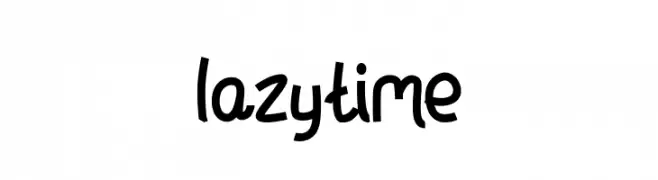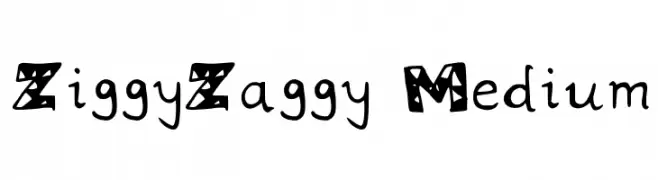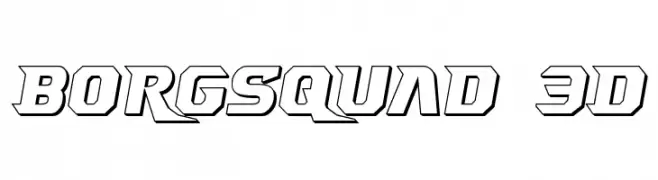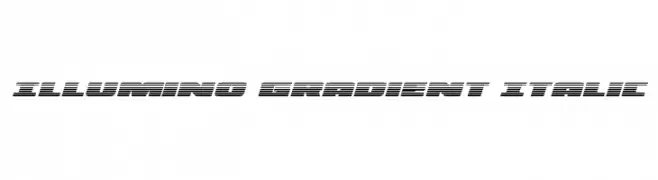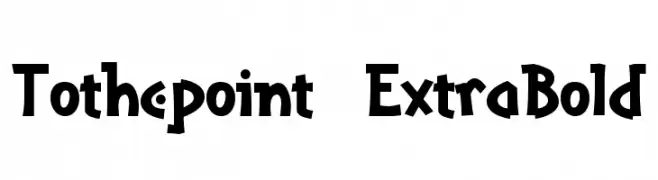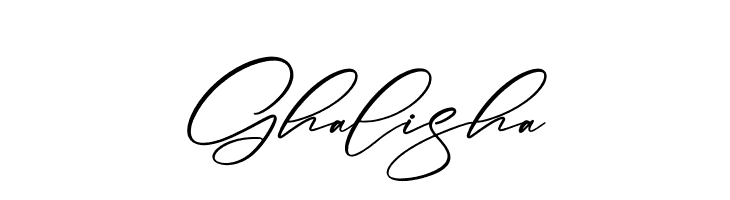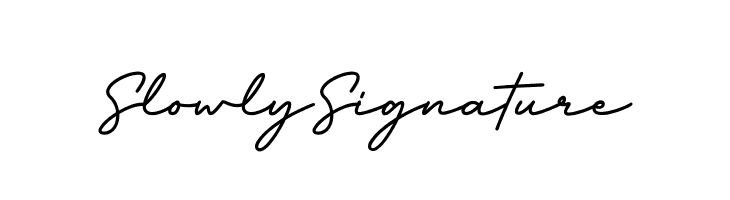
A bold, 3D font with a futuristic and dynamic style.
A bold, angular, geometric font with a modern edge.
A bold, brushstroke font with dynamic and textured characters.
A bold, italic font with a futuristic gradient line design.
A modern, outline-style font with rounded edges and geometric shapes.
A bold, flowing script font with a dynamic and elegant style.
A bold, playful font with whimsical, dynamic characters.